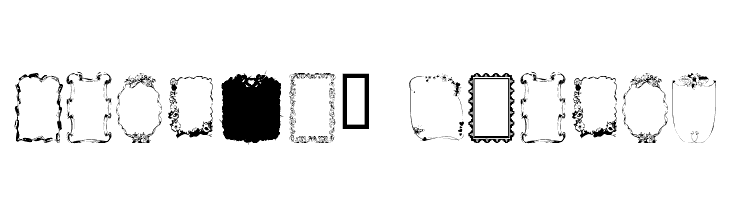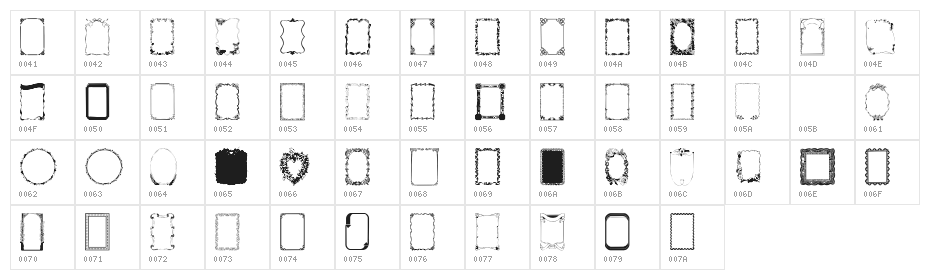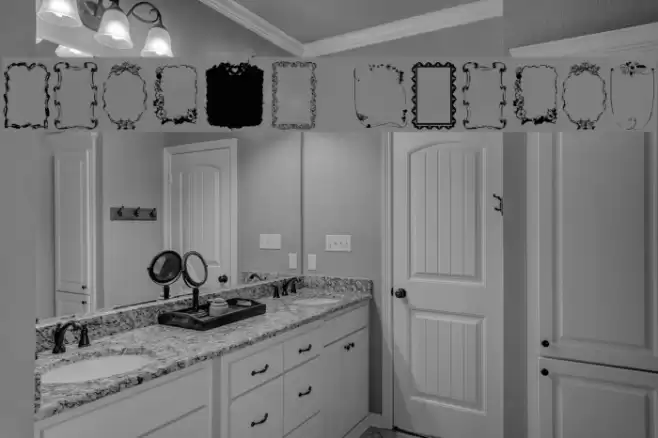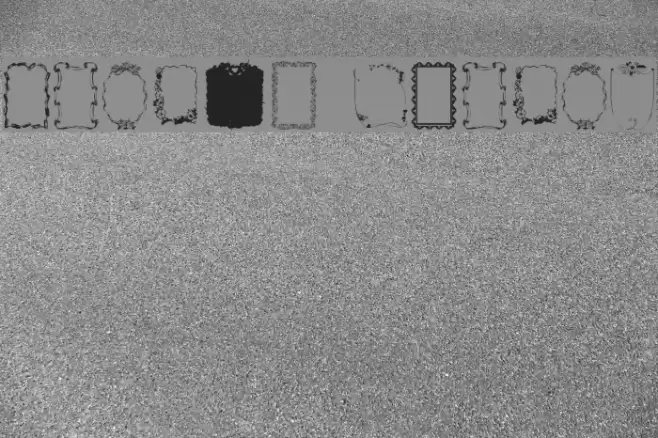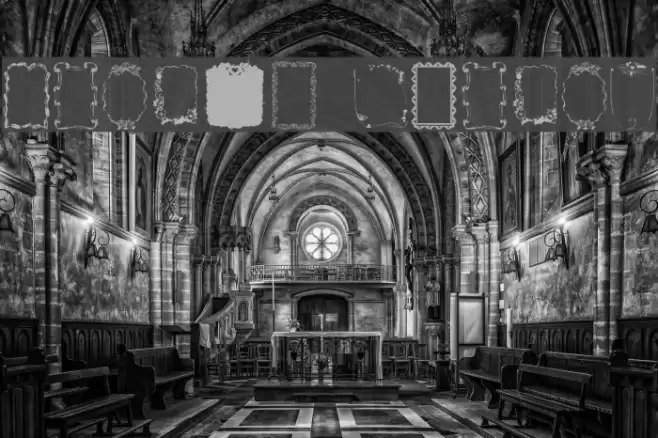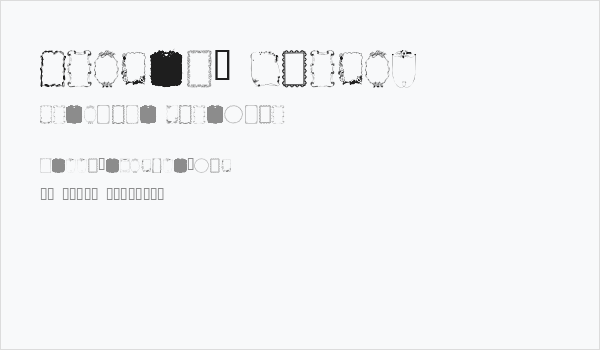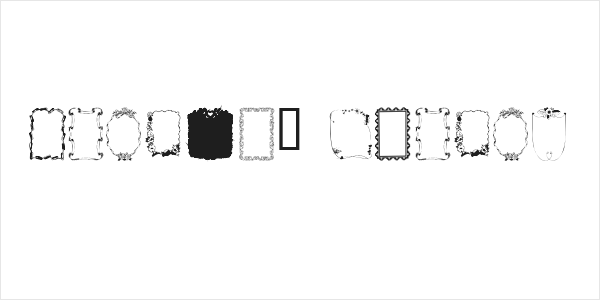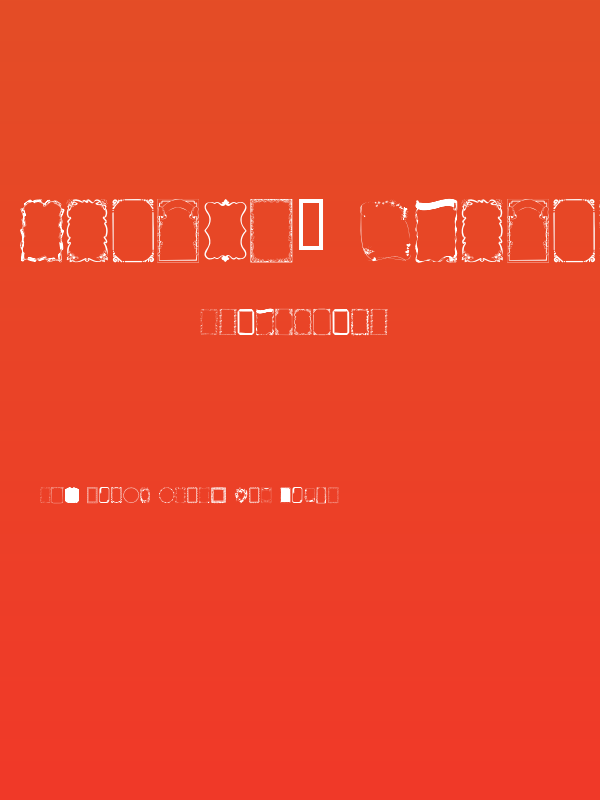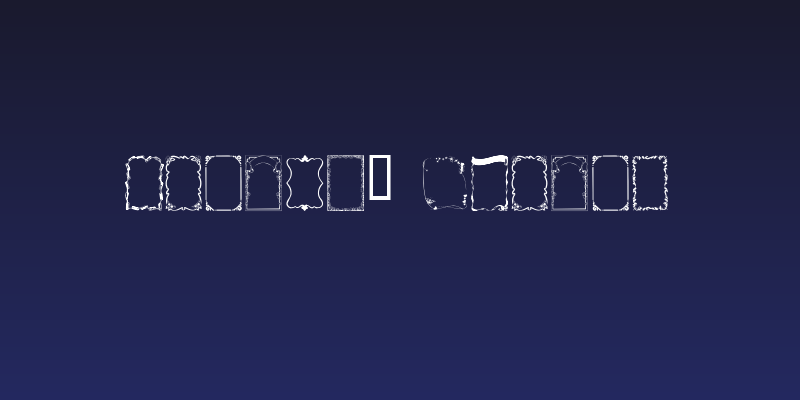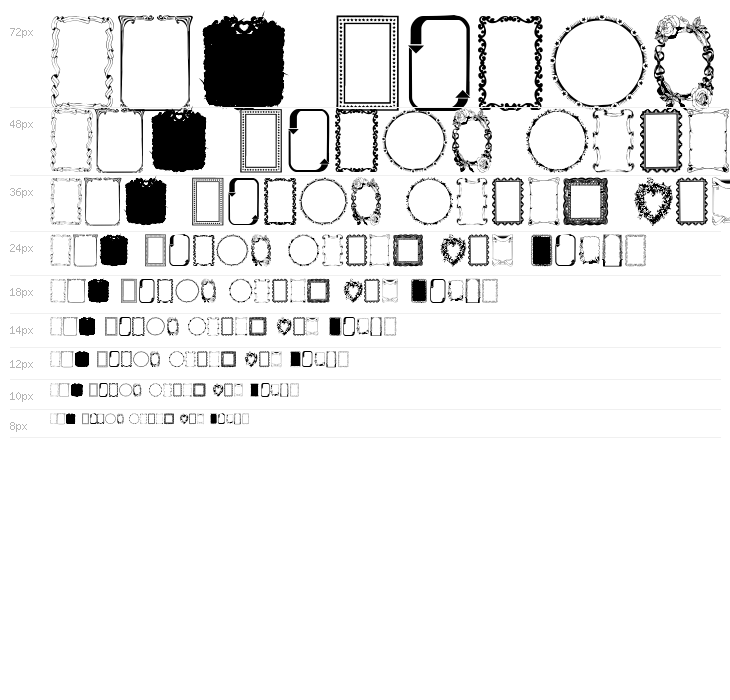
Frames1 Normal Font
Frames1 Normal Description
A decorative collection of ornate and simple rectangular, oval, and heart-shaped frames with a variety of borders including floral, scalloped, geometric, and solid styles. Each character represents a unique frame design rather than a traditional letterform.
| Overall Style | Decorative, Ornamental |
| Use Case | Borders, Frames, Graphic embellishments |
| Proposed Projects | Invitations, certificates, scrapbooking, decorative borders, digital art, posters. |